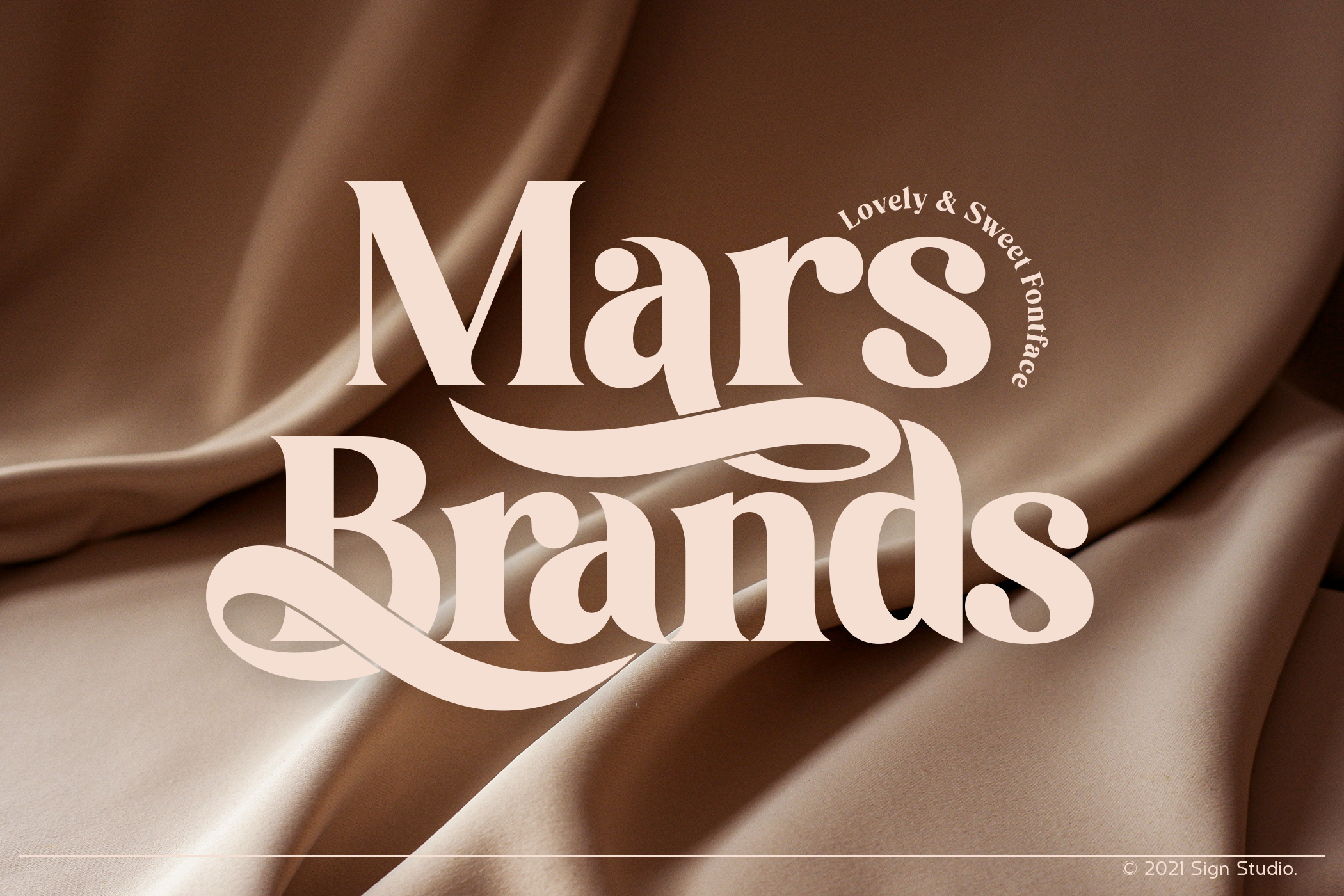
Mars Brand - Lovely Typeface
Mars Brands is an absolutely elegant serif font with lovely touch. This typeface includes beautiful stylistic alternates and discretionary ligatures. It will elevate a wide range of crafting ideas, from cards, product branding, labels, and more.This font is PUA encoded, which means you can access all of the glyphs and swashes with ease.